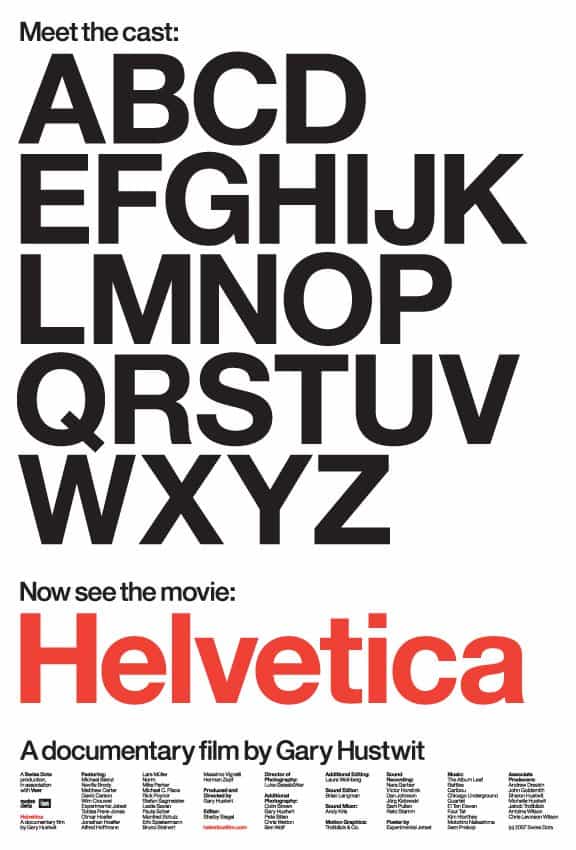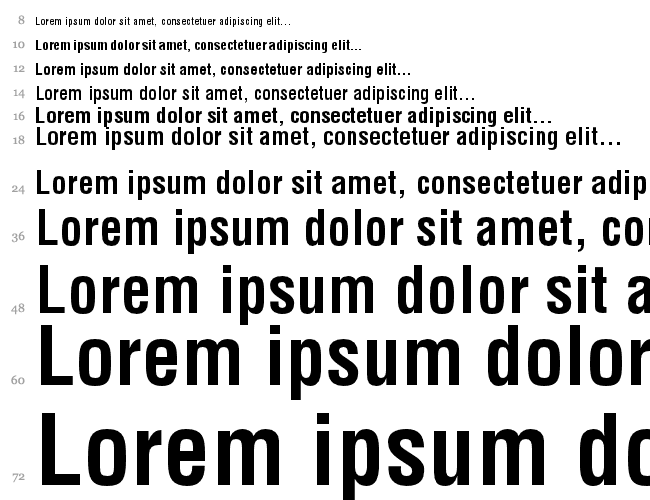
Helvetica Font Ttf - The simplicity and clarity of its. Helvetica is one of the most recognizable sans serif fonts in use today. Web making the web more beautiful, fast, and open through great typography
The simplicity and clarity of its. Helvetica is one of the most recognizable sans serif fonts in use today. Web making the web more beautiful, fast, and open through great typography
Helvetica is one of the most recognizable sans serif fonts in use today. The simplicity and clarity of its. Web making the web more beautiful, fast, and open through great typography
HelveticaCondensed Bold truetype font
The simplicity and clarity of its. Web making the web more beautiful, fast, and open through great typography Helvetica is one of the most recognizable sans serif fonts in use today.
Helvetica the font that changed the design History
The simplicity and clarity of its. Helvetica is one of the most recognizable sans serif fonts in use today. Web making the web more beautiful, fast, and open through great typography
Helvetica Font Gets Its First Redesign in 35 Years
The simplicity and clarity of its. Helvetica is one of the most recognizable sans serif fonts in use today. Web making the web more beautiful, fast, and open through great typography
A Guide to Helvetica Fonts
Helvetica is one of the most recognizable sans serif fonts in use today. The simplicity and clarity of its. Web making the web more beautiful, fast, and open through great typography
Web making the web more beautiful, fast, and open through great typography The simplicity and clarity of its. Helvetica is one of the most recognizable sans serif fonts in use today.
Helvetica is one of the most recognizable sans serif fonts in use today. The simplicity and clarity of its. Web making the web more beautiful, fast, and open through great typography
The simplicity and clarity of its. Helvetica is one of the most recognizable sans serif fonts in use today. Web making the web more beautiful, fast, and open through great typography
The simplicity and clarity of its. Web making the web more beautiful, fast, and open through great typography Helvetica is one of the most recognizable sans serif fonts in use today.
Helvetica is one of the most recognizable sans serif fonts in use today. The simplicity and clarity of its. Web making the web more beautiful, fast, and open through great typography
The simplicity and clarity of its. Helvetica is one of the most recognizable sans serif fonts in use today.